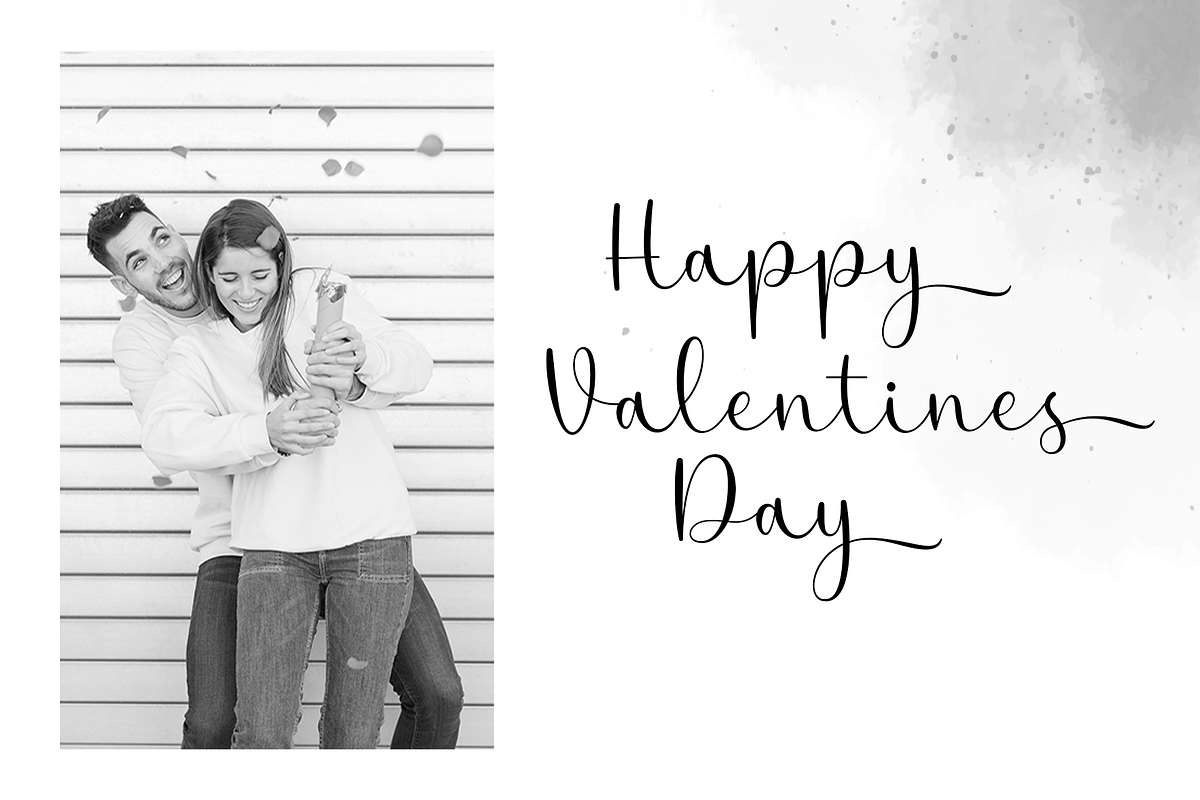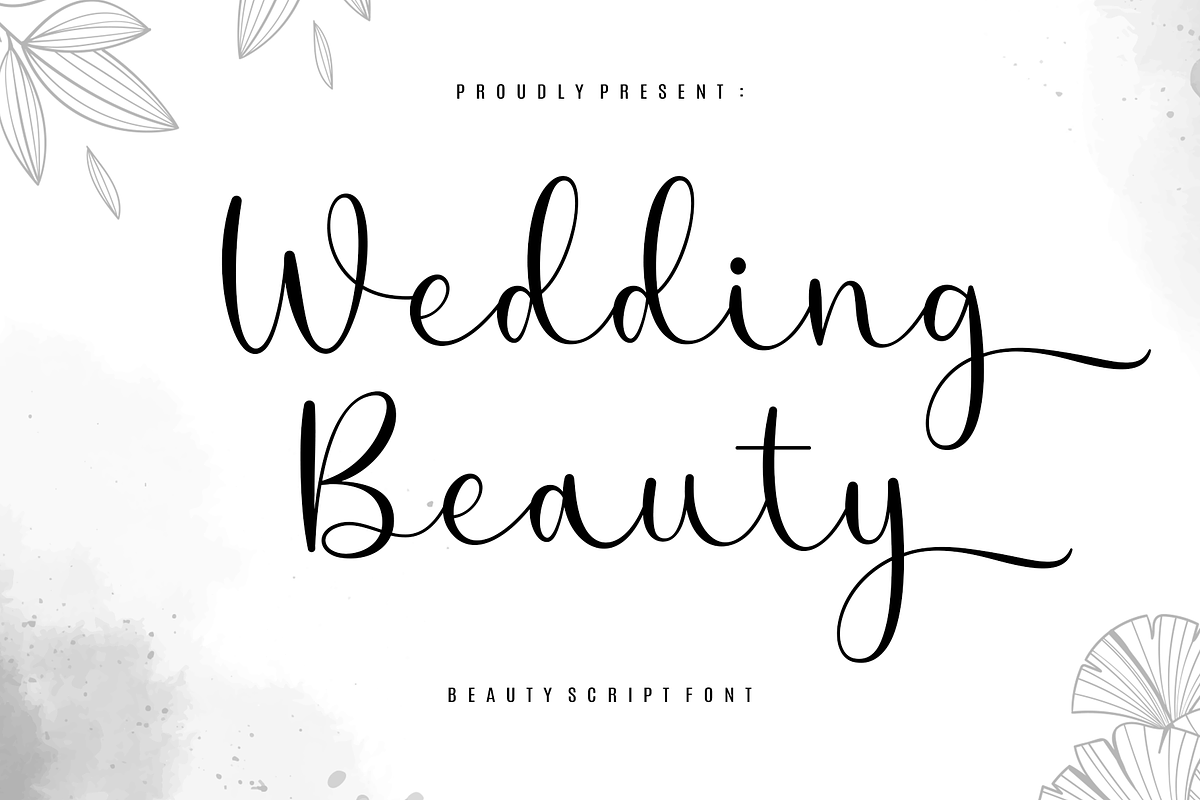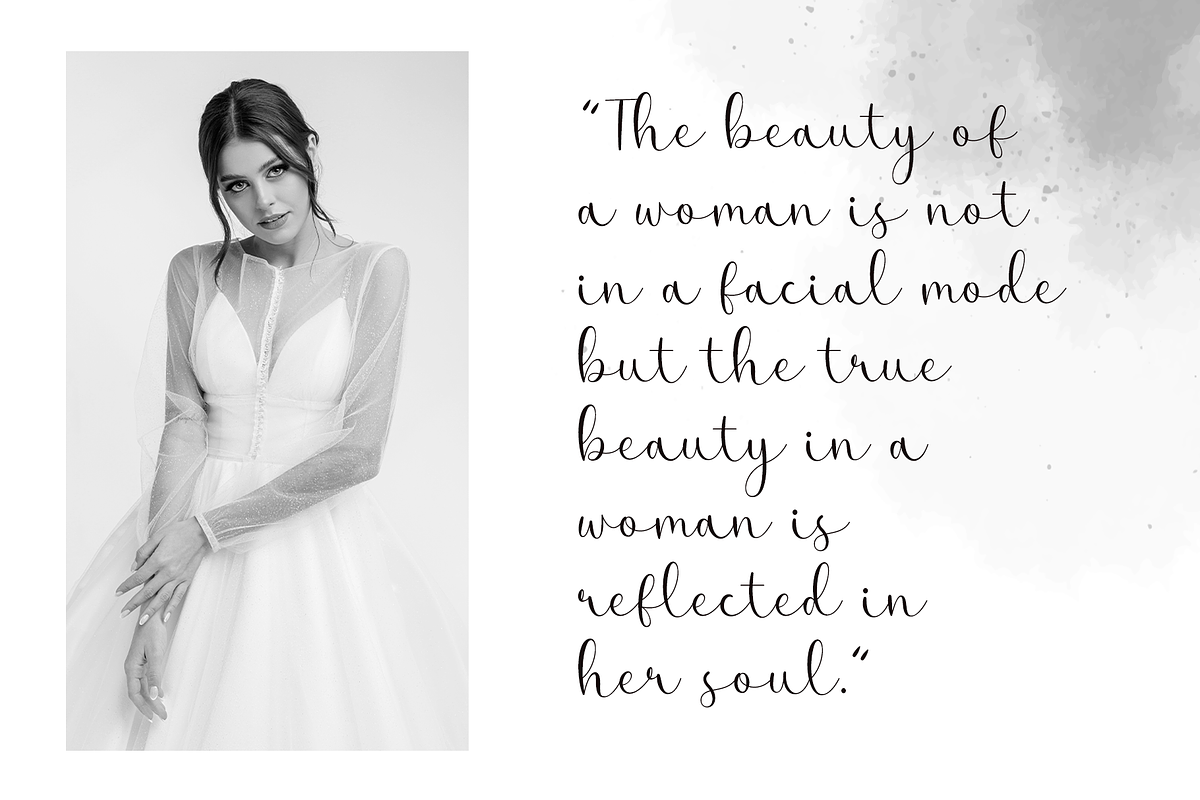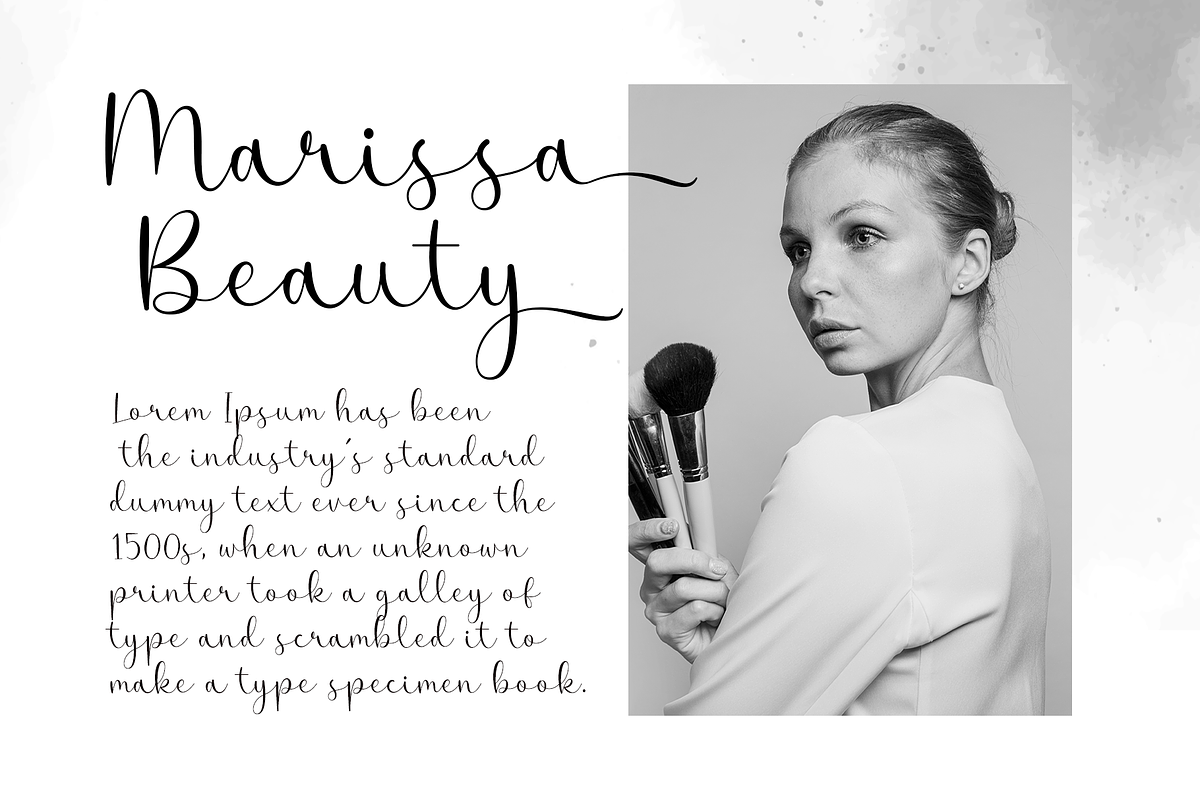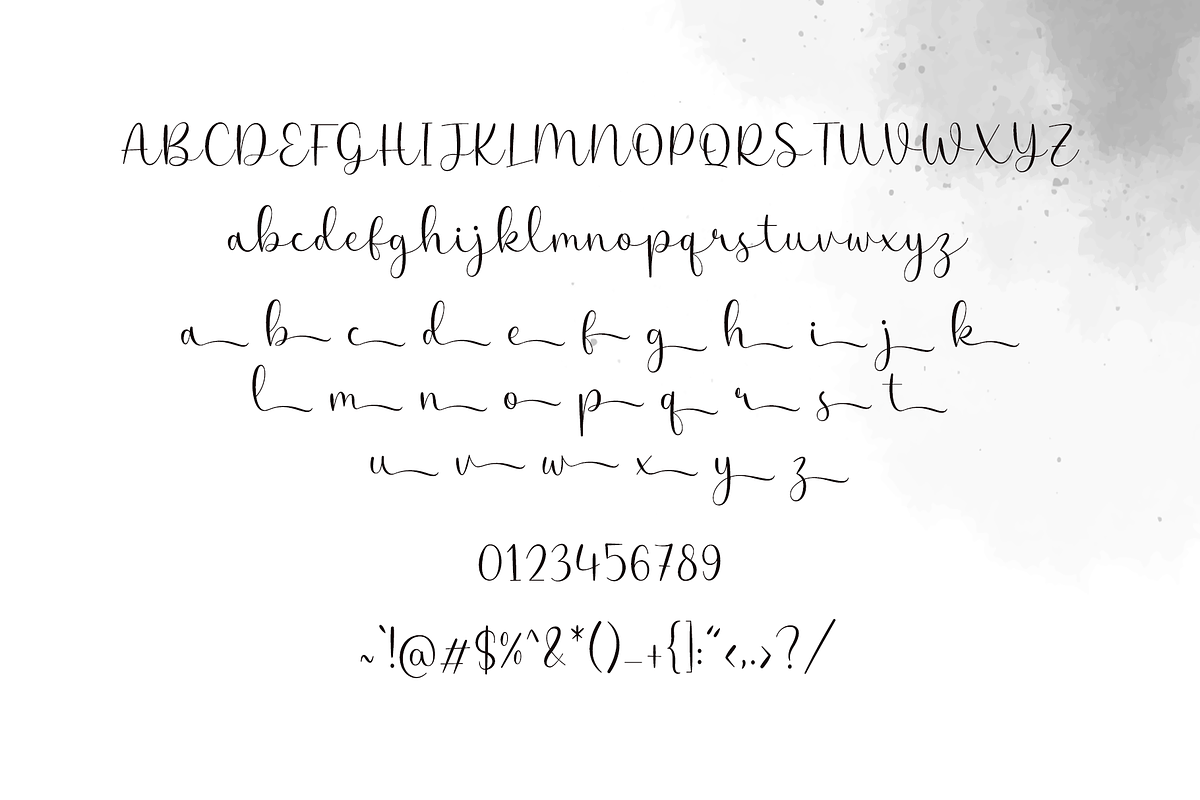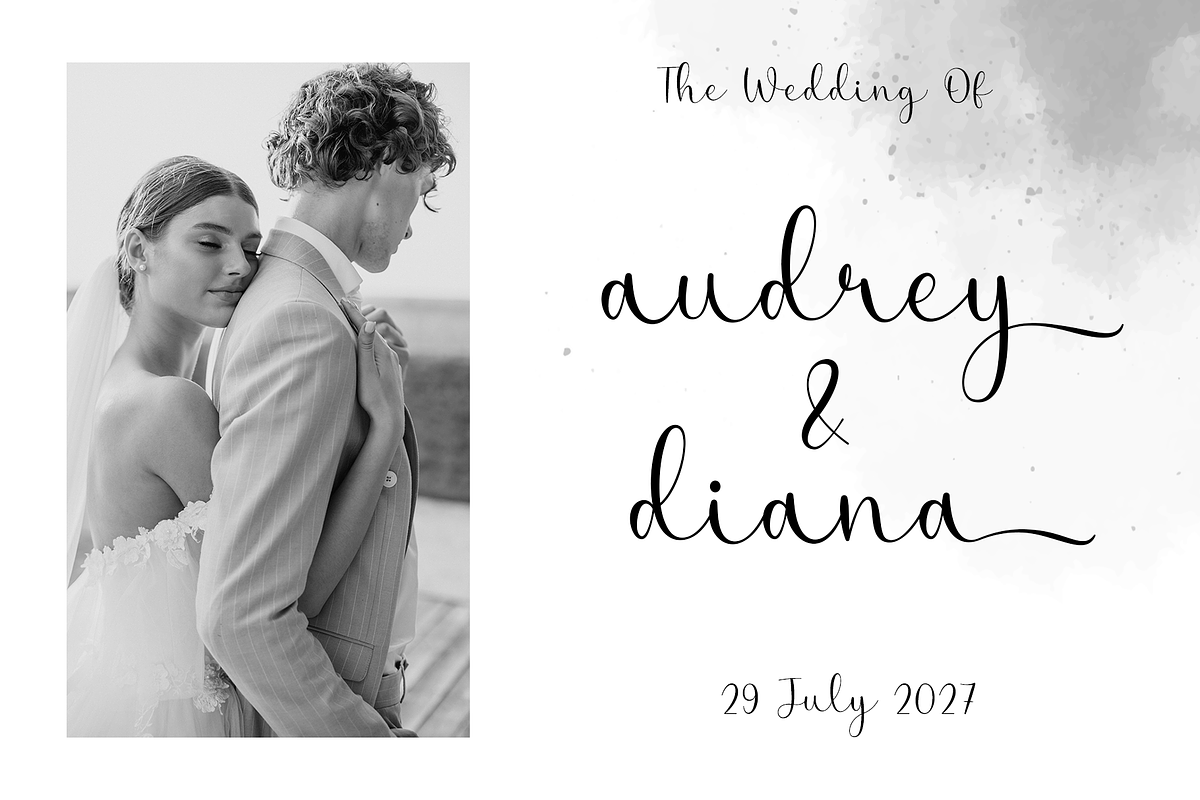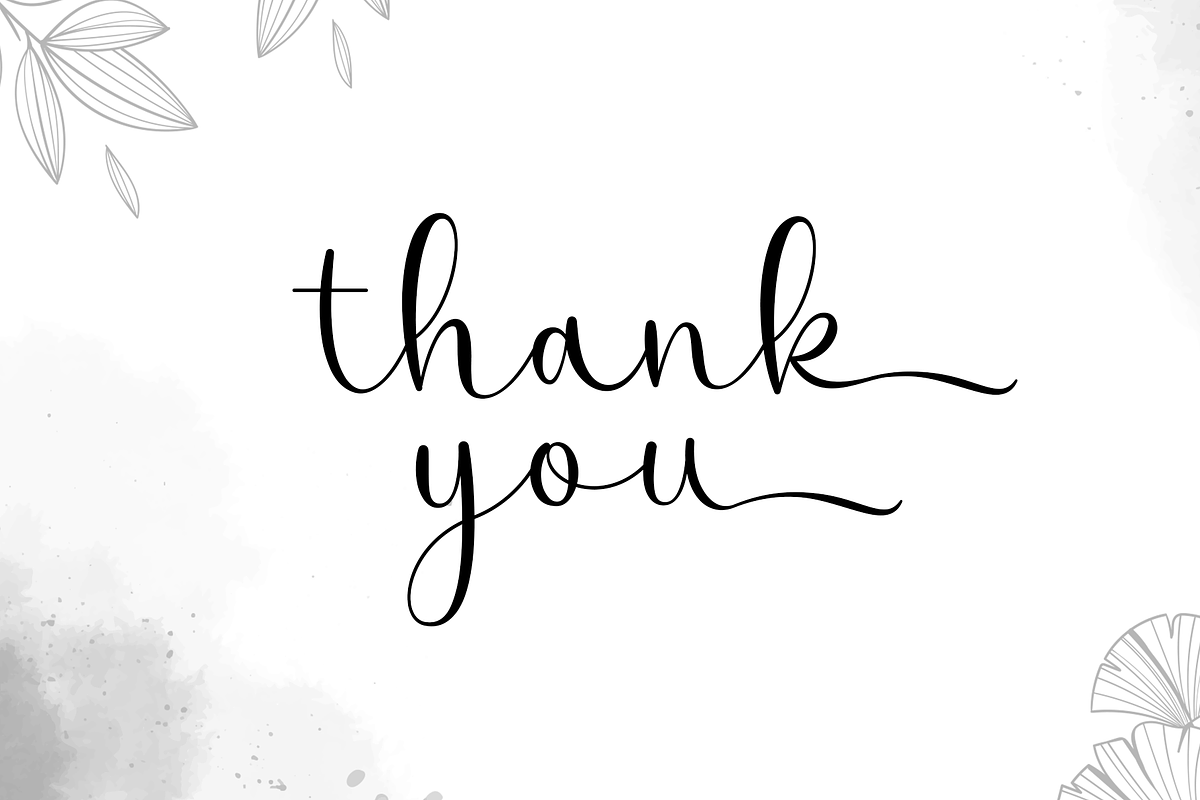
Wedding Beauty
Introducing Wedding Beauty, a script font that effortlessly fuses the elegance of fine calligraphy. Each stroke of this typeface is a harmonious blend of stunning beauty and delicate thin lines, exuding an allure that's simply enchanting to behold. Perfect for setting a romantic and sophisticated tone on any platform. With Wedding Beauty, you're not just choosing a font - you're selecting an artful symphony of style to ink your thoughts.